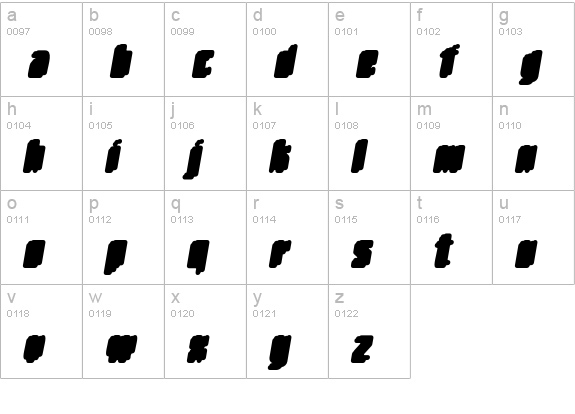
Matica-SupernormalObliqueDrop is a visually striking and versatile font that combines a modern aesthetic with a touch of whimsy. Its unique design features sharp angles and exaggerated curves, giving it a dynamic and energetic appearance. This font is perfect for adding a bold and eye-catching element to any design project. What sets Matica-SupernormalObliqueDrop apart is its supernatural twist, adding an extra layer of intrigue and mystery to its overall look. The oblique drop effect creates a sense of movement and depth, making this font truly stand out from the crowd. Whether you're working on a poster, website, or branding project, Matica-SupernormalObliqueDrop will bring a touch of the extraordinary to your work. Best of all, this font is completely free to download at FontsMarket.com, making it easily accessible to designers and creatives looking to add a touch of magic to their projects. Elevate your designs with Matica-SupernormalObliqueDrop and let your creativity soar to new heights.